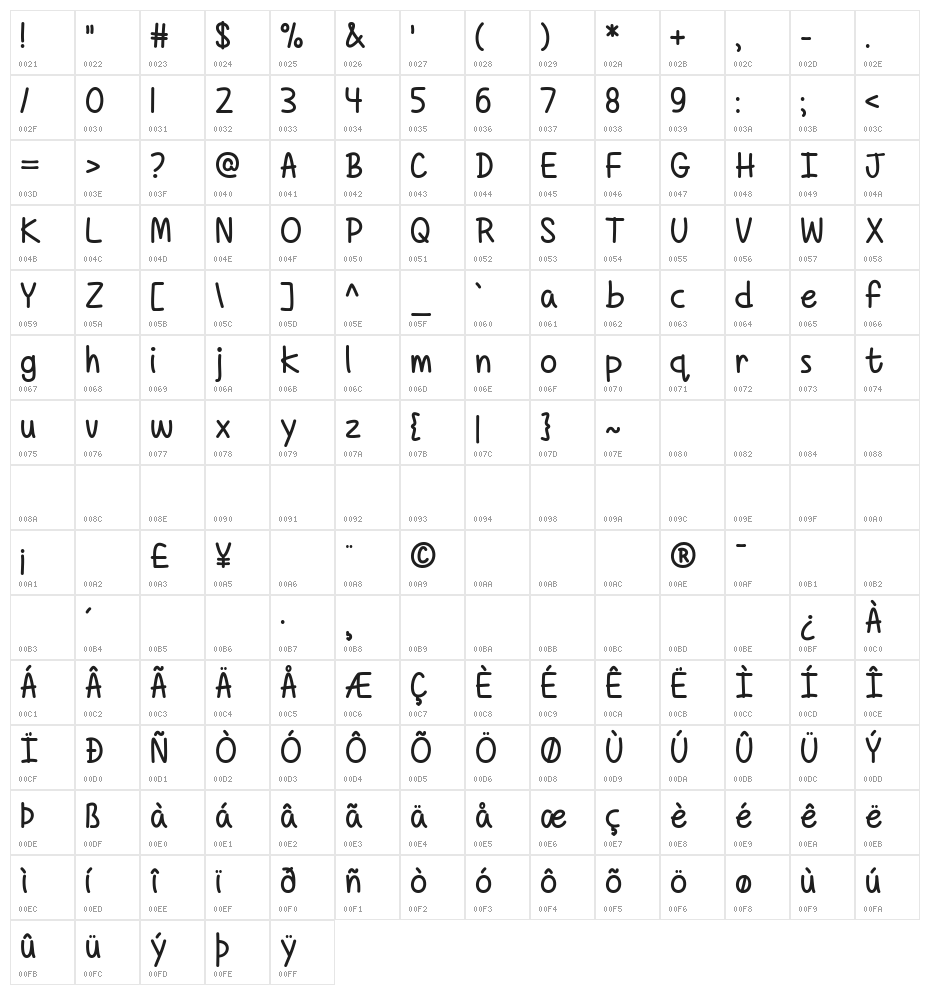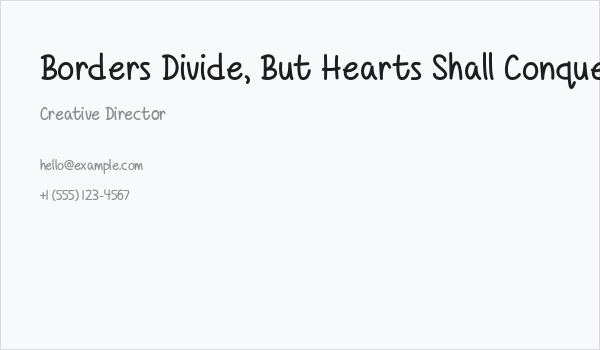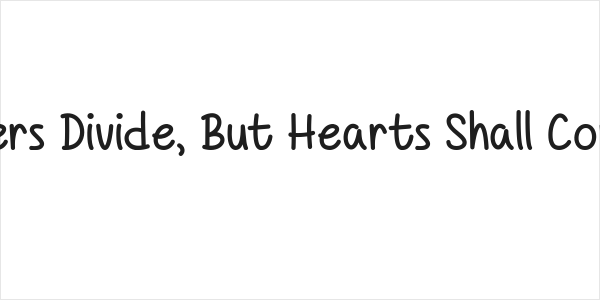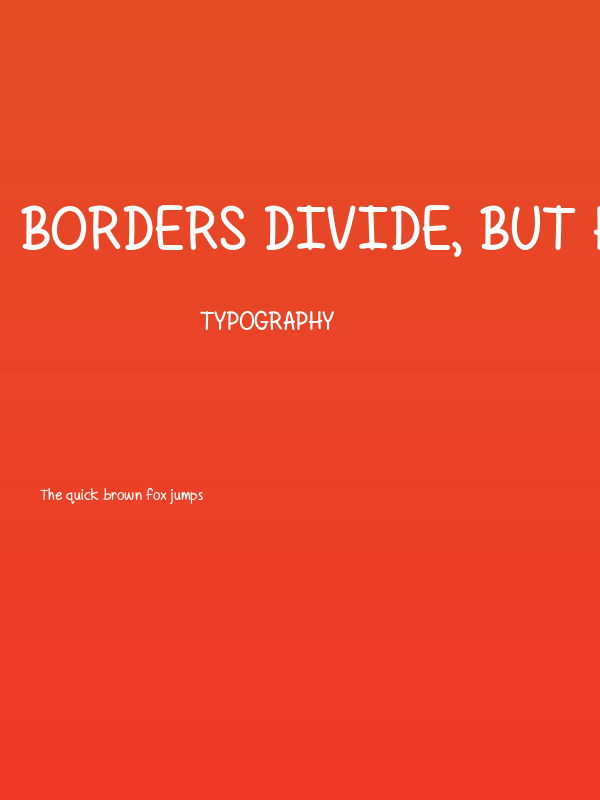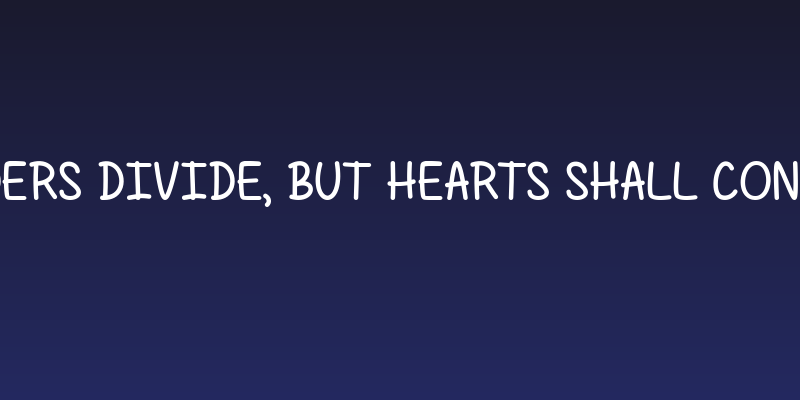
Borders Divide, But Hearts Shall Conquer Font
Borders Divide, But Hearts Shall Conquer Description
This playful and rounded font features a handwritten style that exudes a friendly and approachable vibe. The letters are slightly irregular, adding to the casual and informal feel. The strokes are consistent in weight, providing a uniform appearance across all characters. The font includes a full set of uppercase and lowercase letters, numbers, and a variety of special characters, making it versatile for different uses. Its smooth curves and lack of sharp edges contribute to its warm and inviting aesthetic.
| Use Case | Headlines, Informal text, Branding |
| Proposed Projects | Ideal for children's books, greeting cards, playful branding, and social media graphics. |